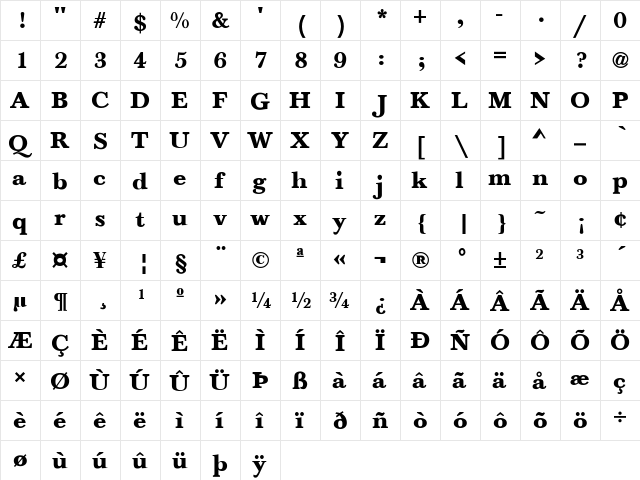
Seaton-Bold Regular
Design Context for Seaton-Bold Typeface
Seaton-Bold takes a measured approach to typography — its balanced proportions and neutral character make it a reliable workhorse for both digital and print work. The heavy weight commands attention and anchors typographic hierarchies.